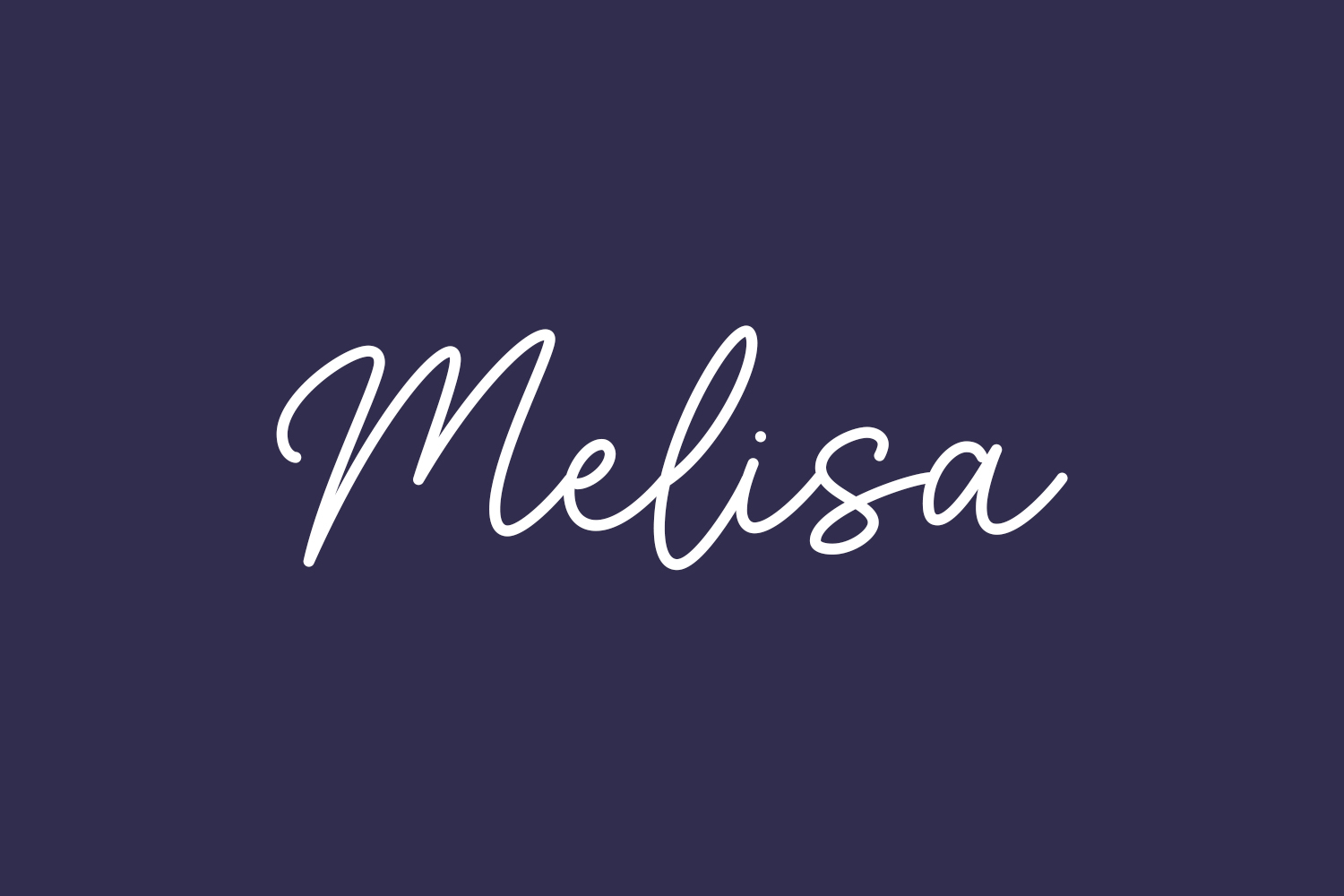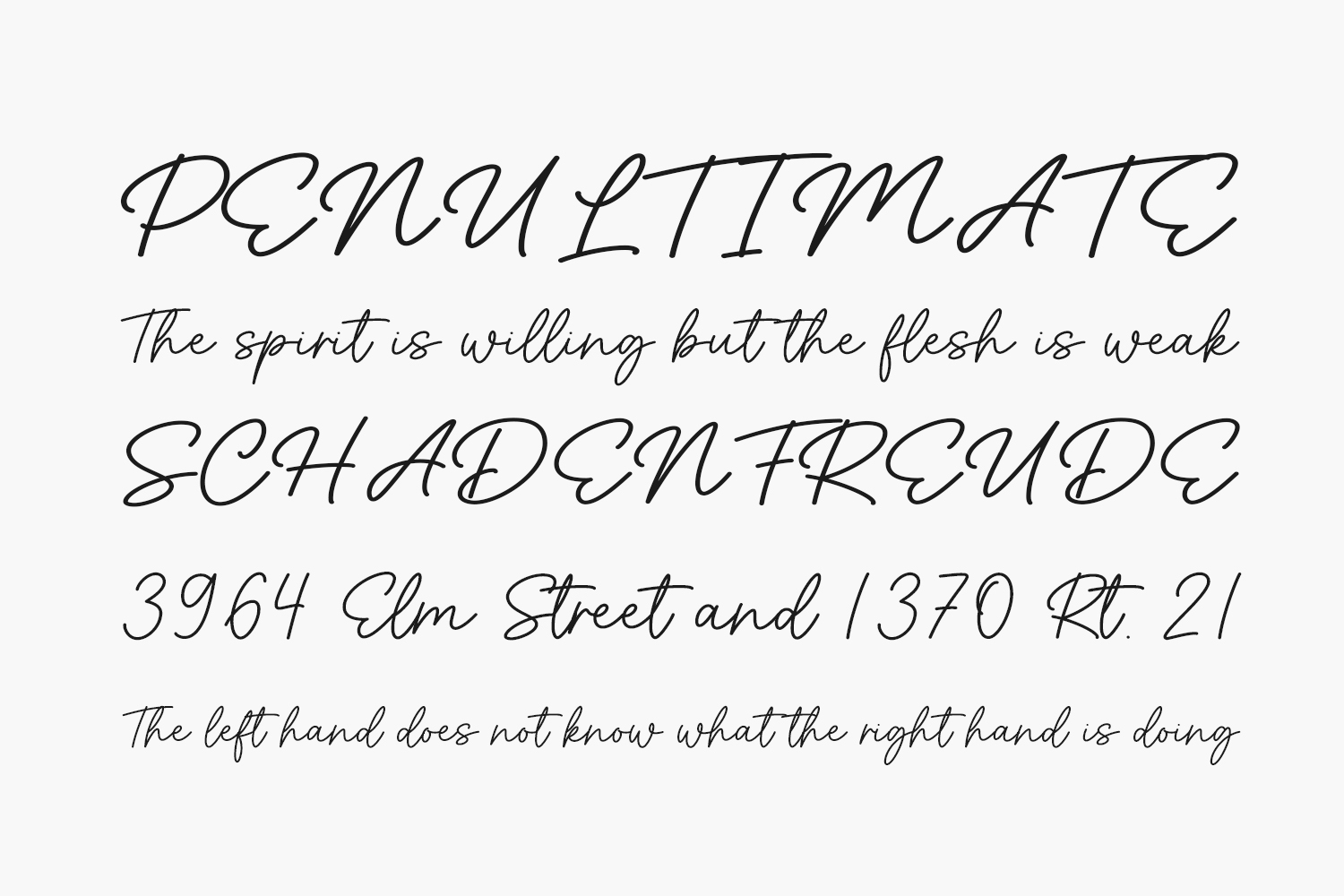
Meet Melisa Free Font, a stunning and contemporary script font characterized by its graceful, smooth curves. This font is an excellent choice for fashion branding and editorial design projects. Melisa Free Font is free for personal use only. Please purchase the full version for commercial use.